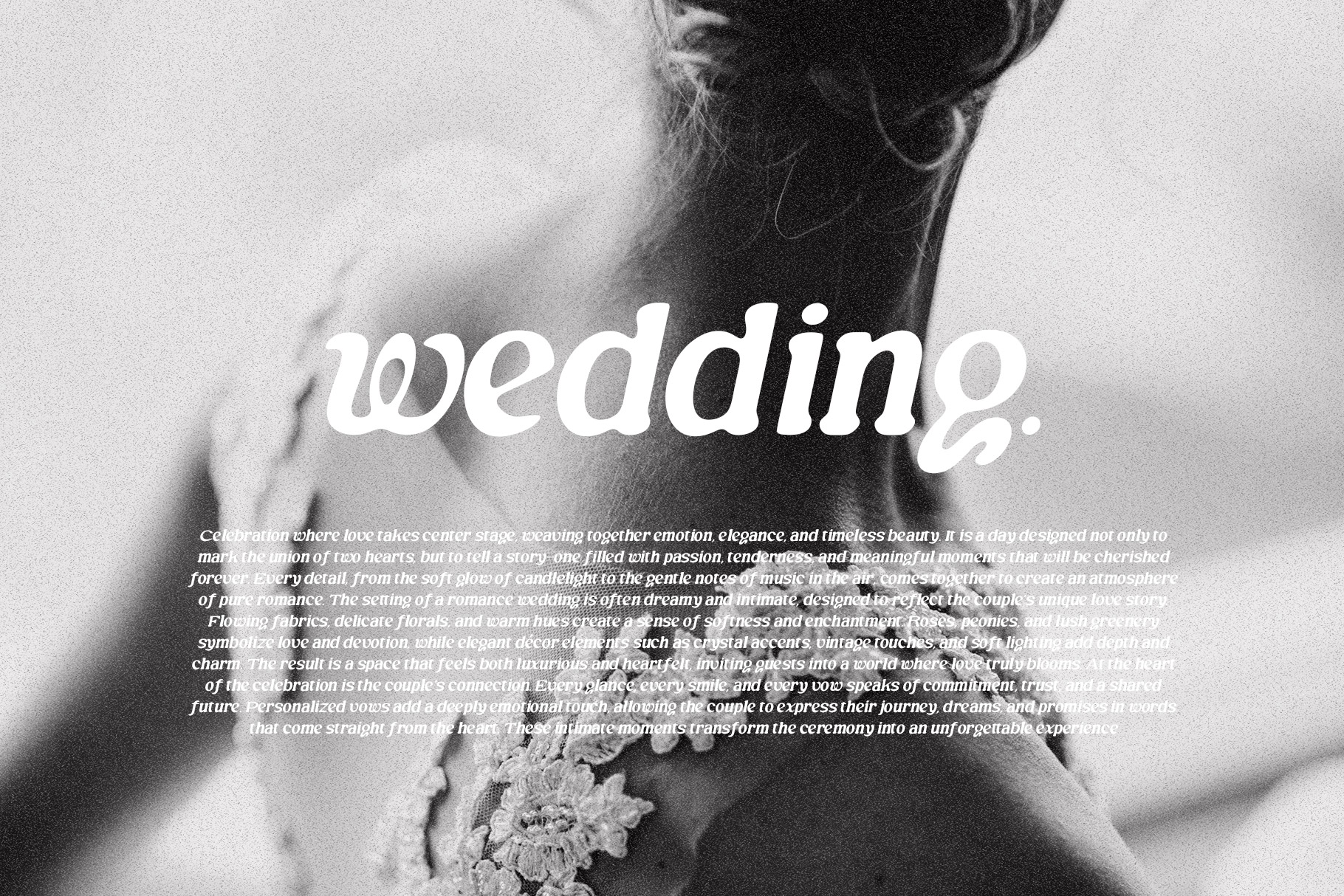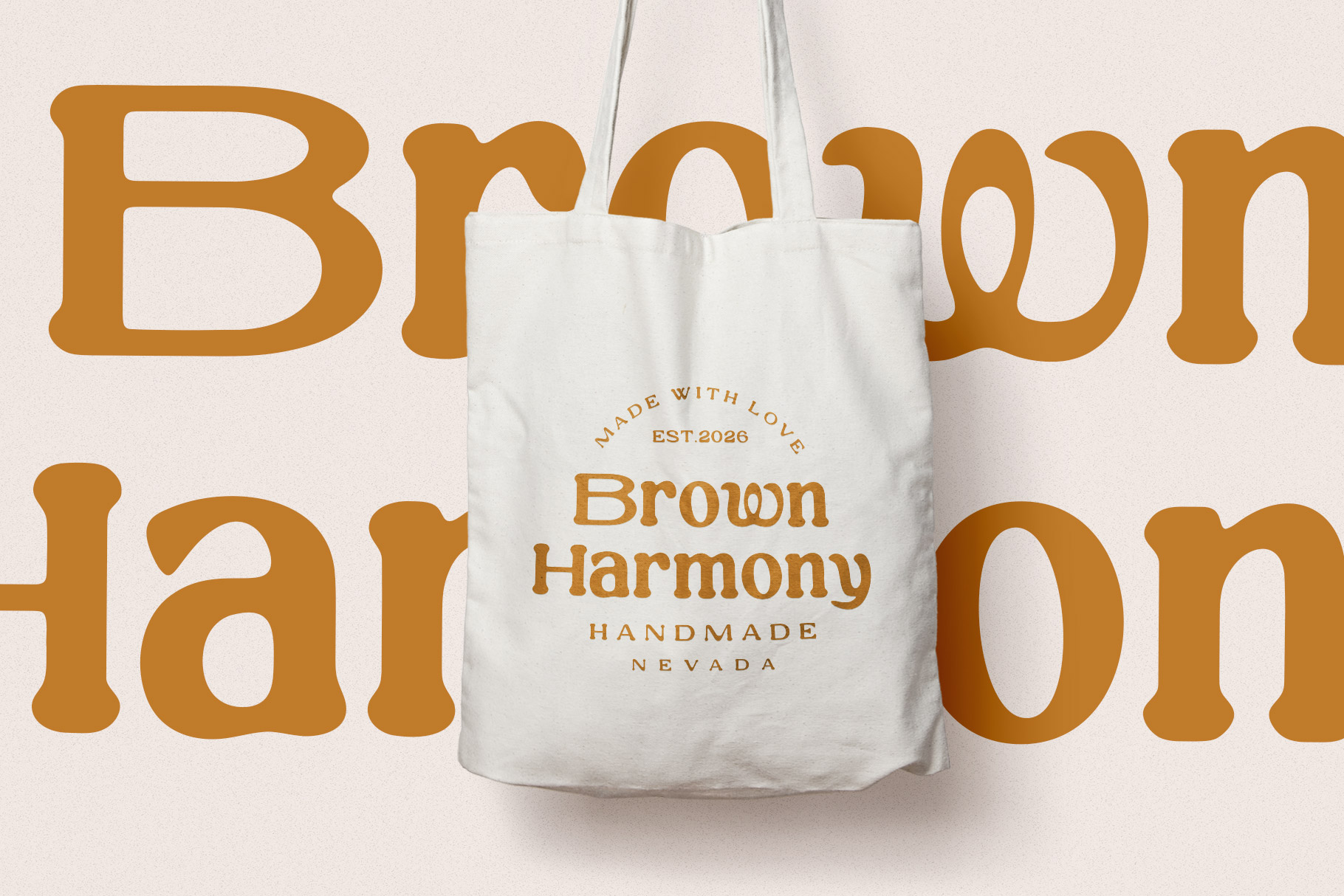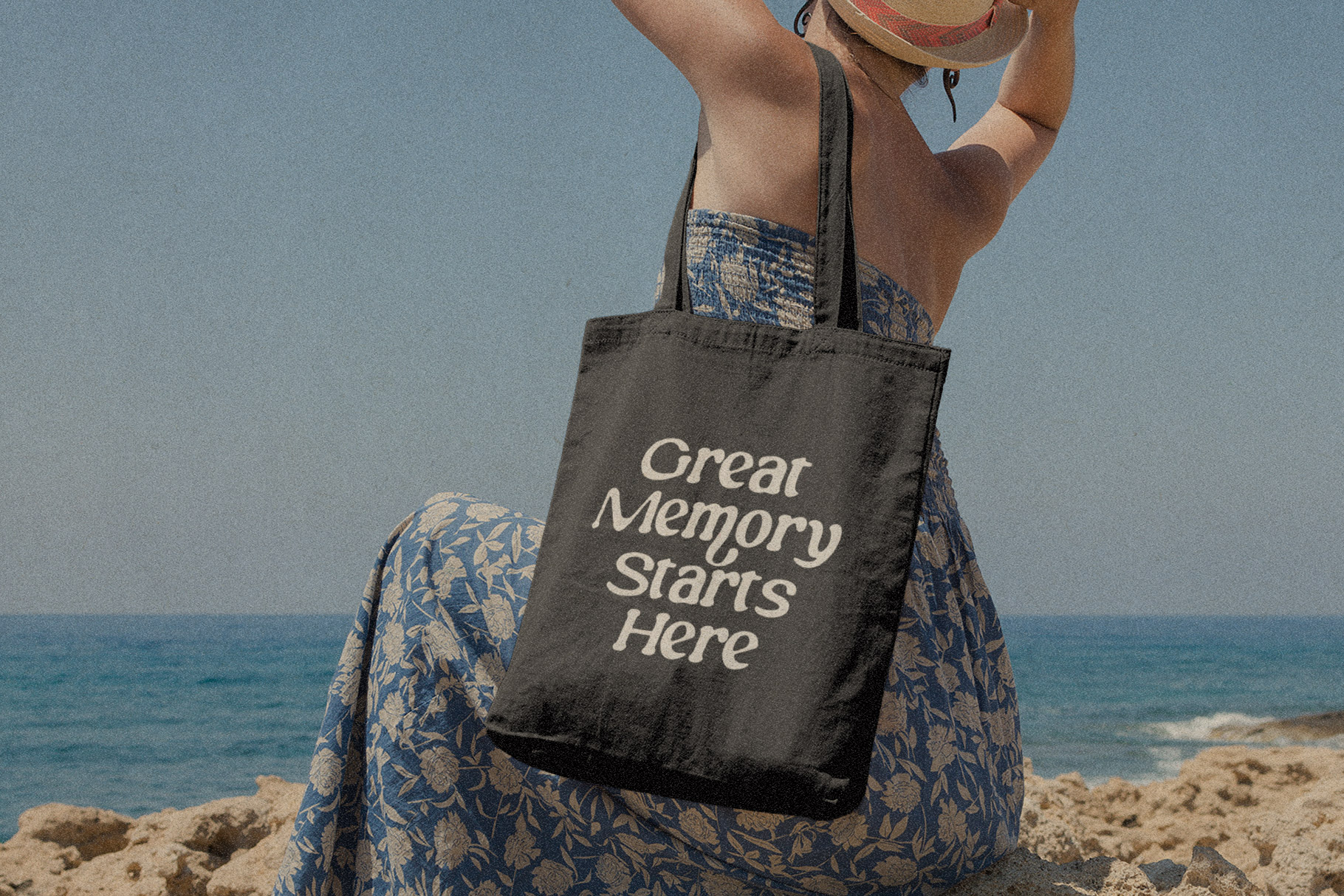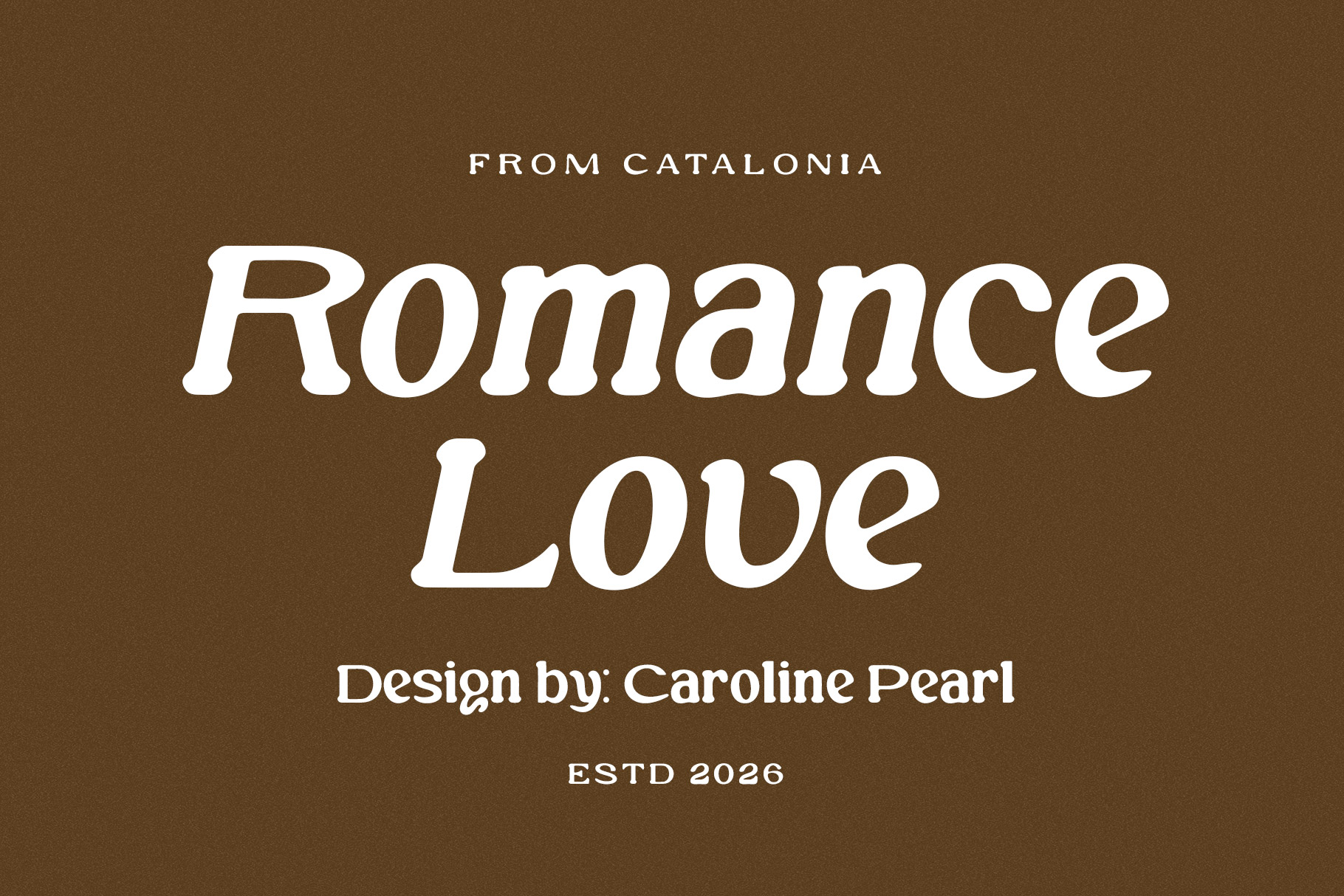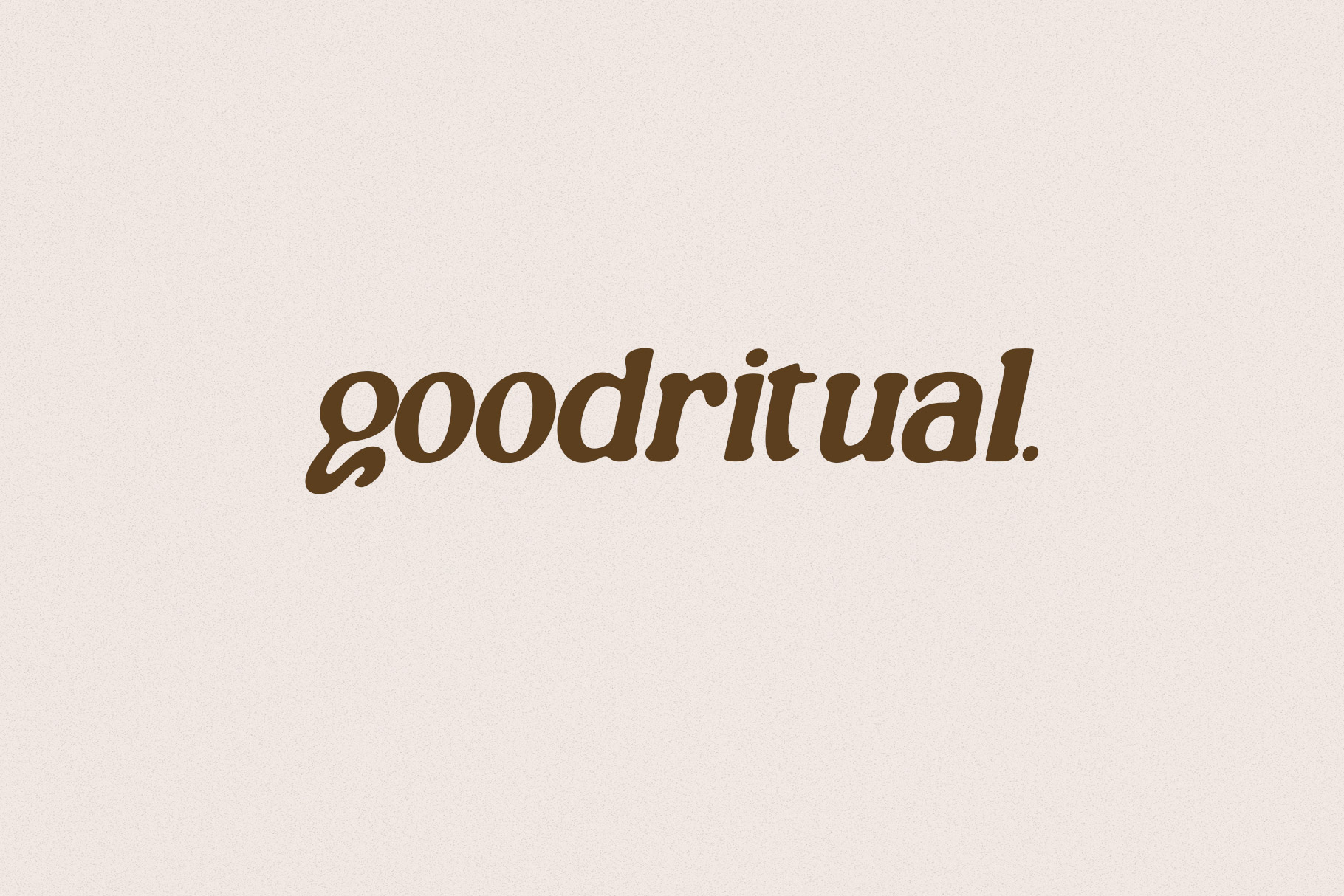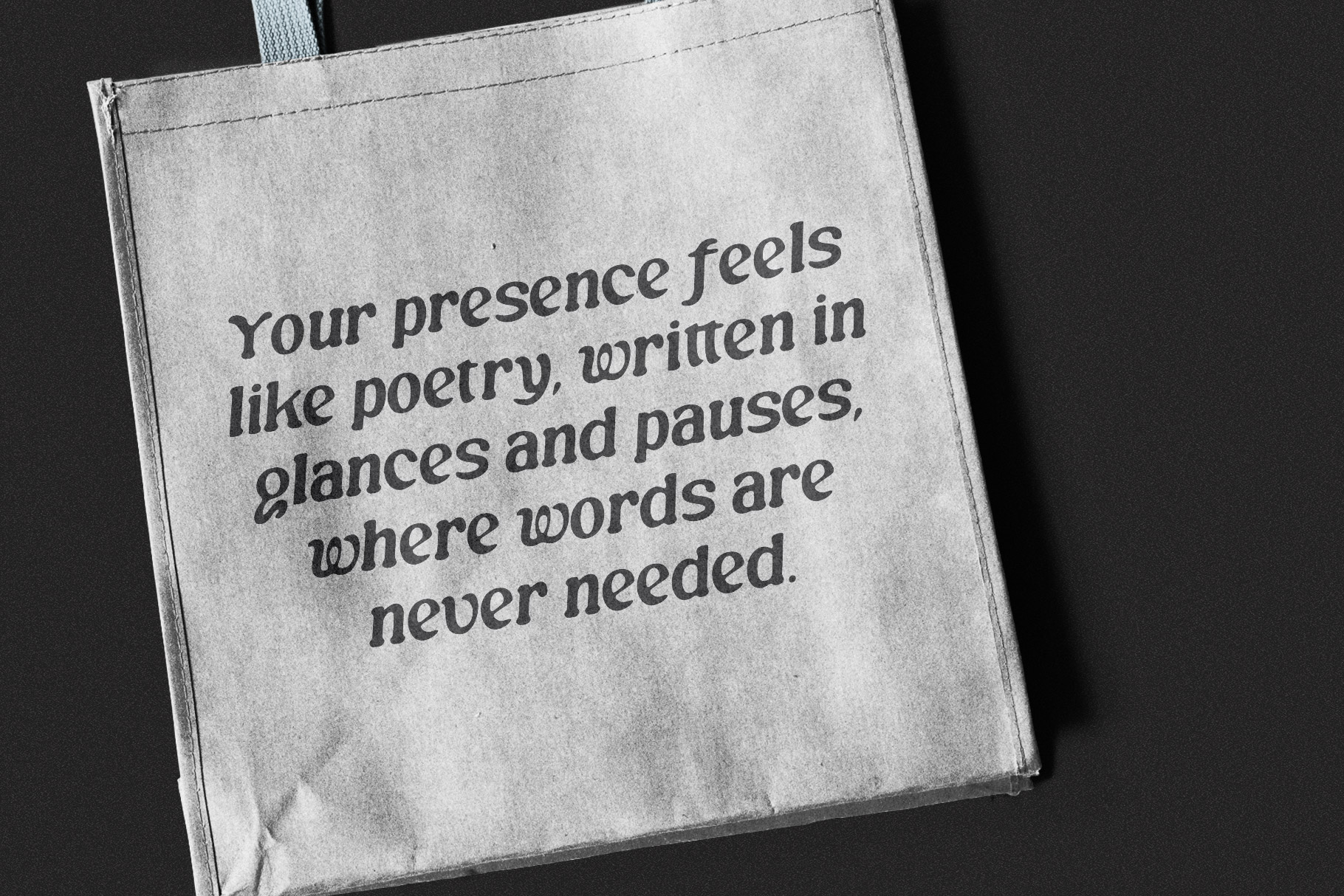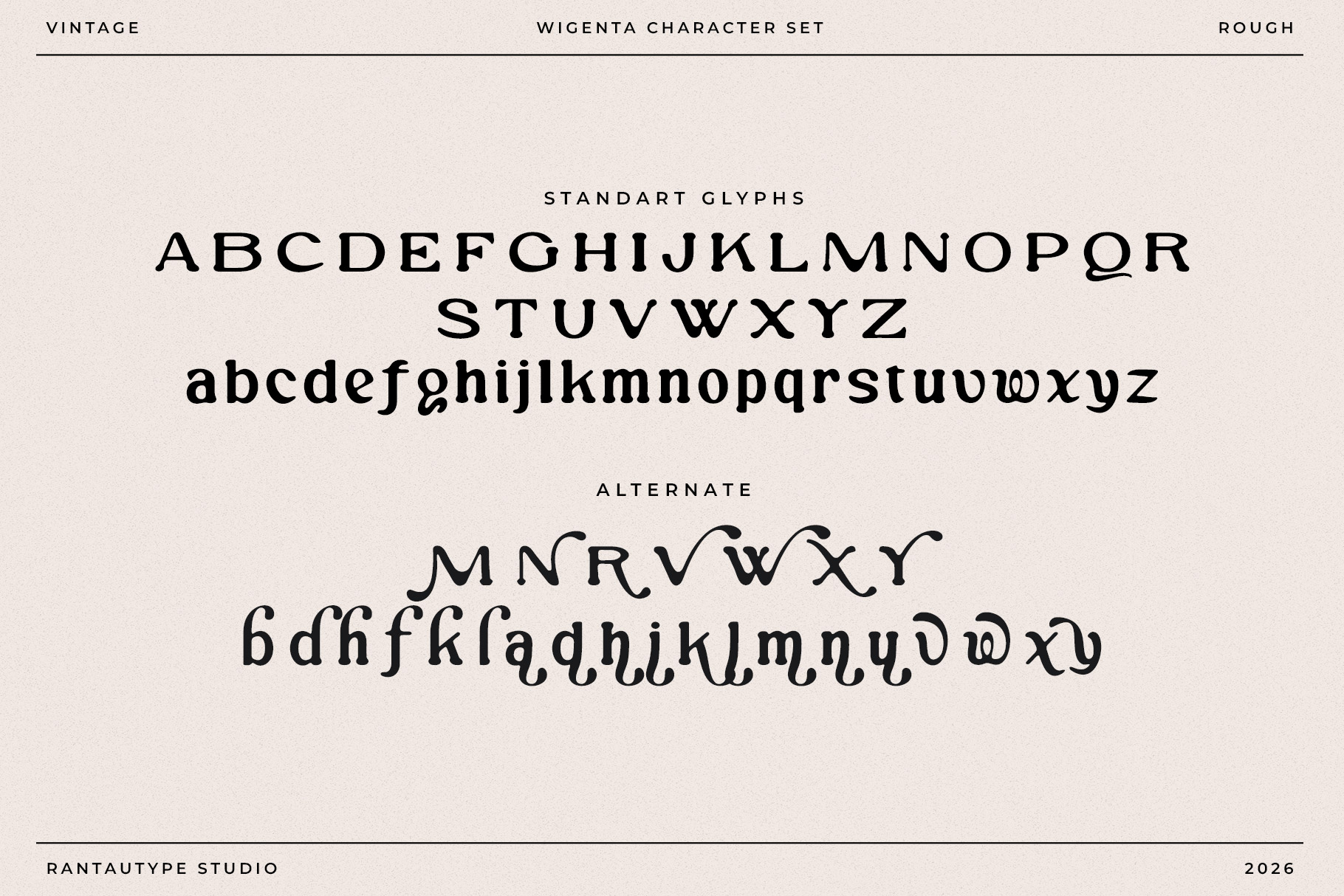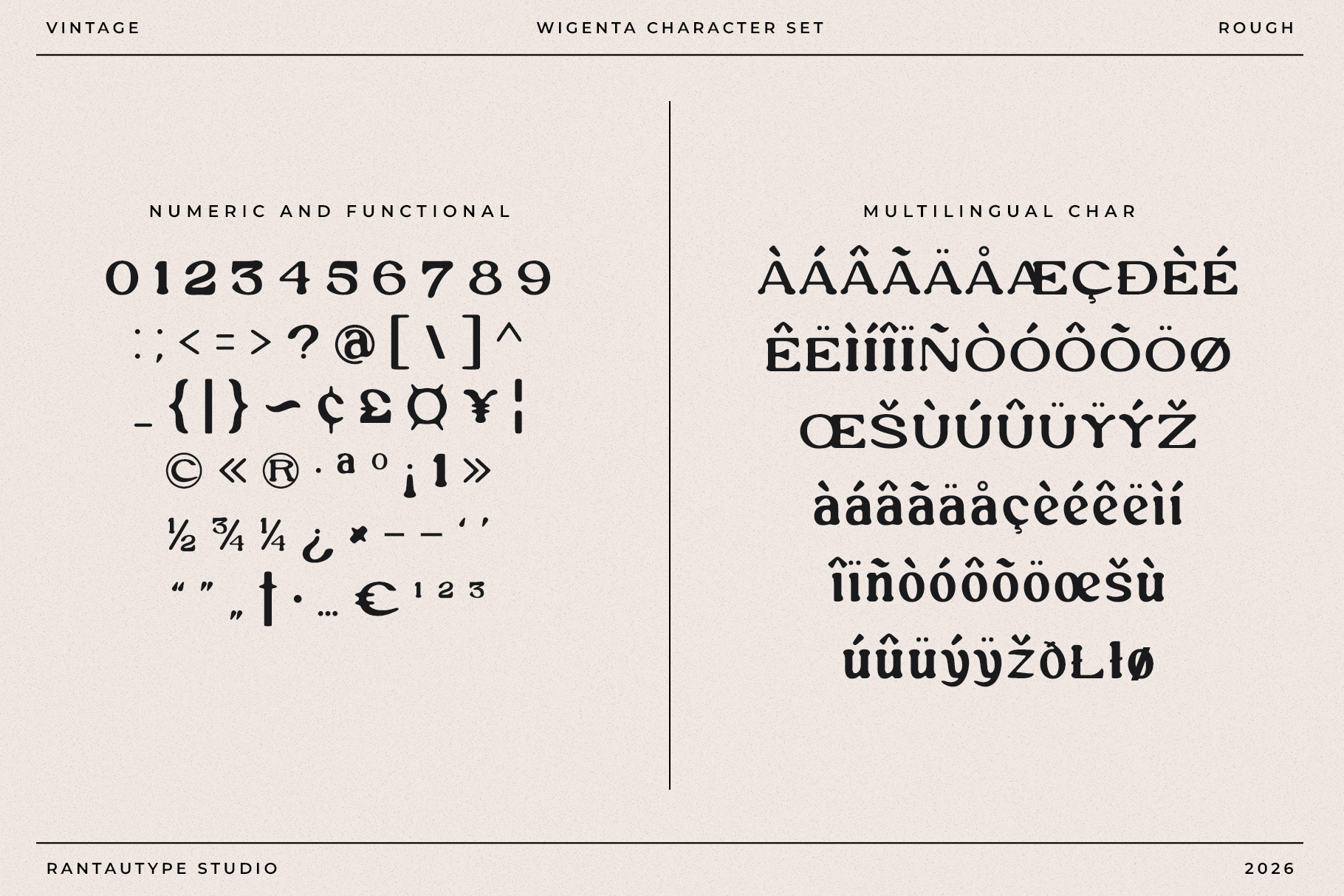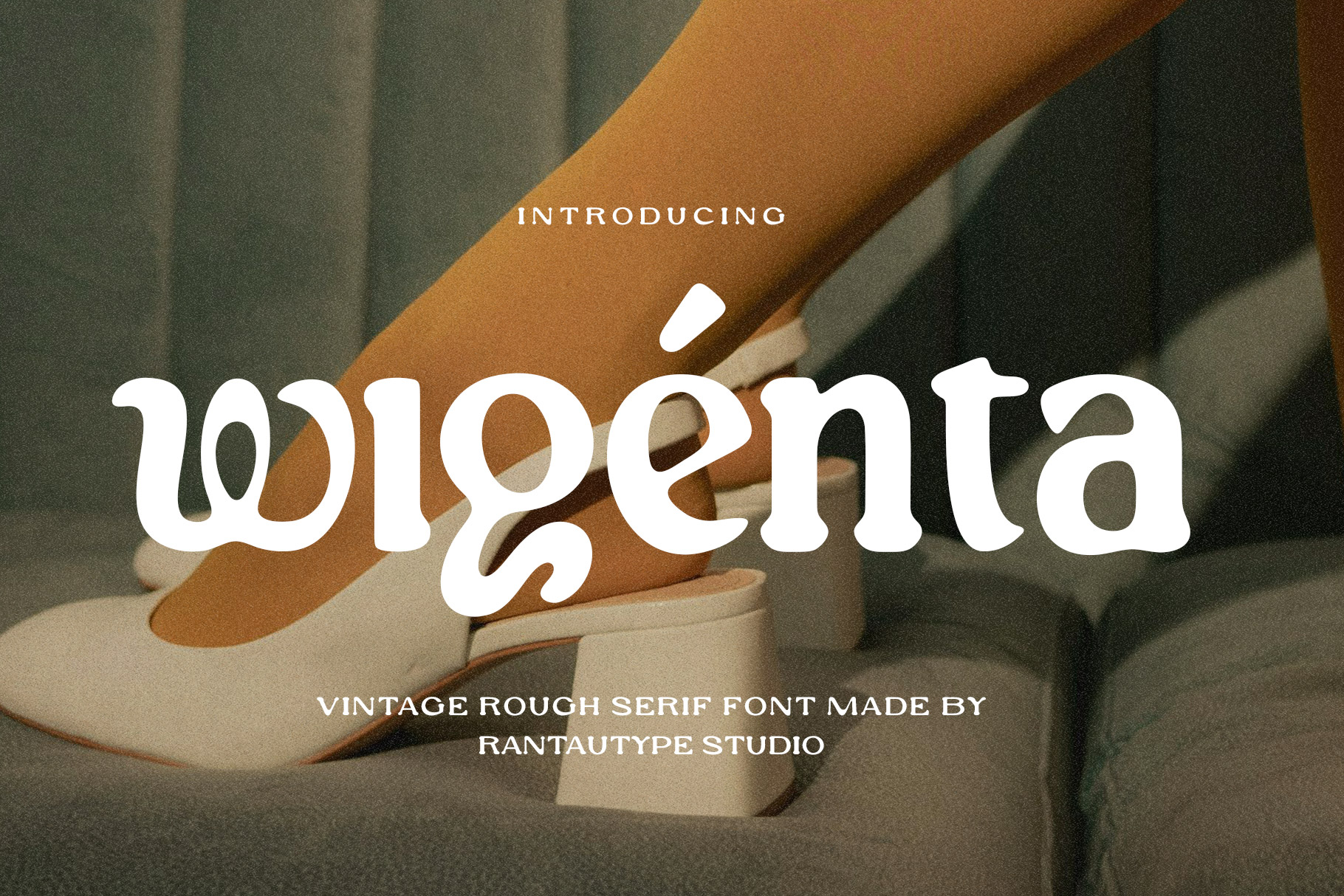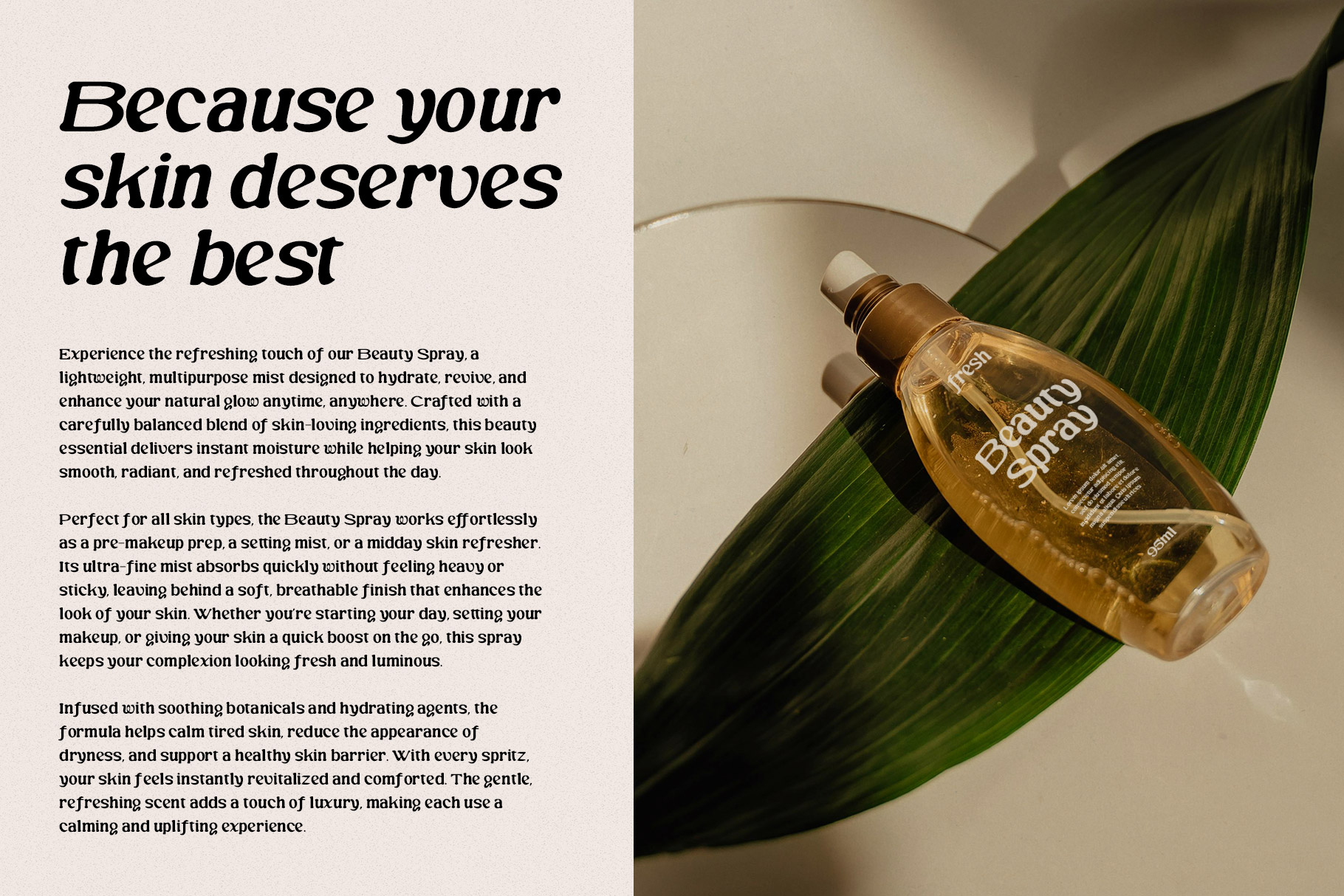
Wigenta Vintage Rough Font
Wigenta is vintage rough font made by rantautype studio. Wigenta captures the raw charm and timeless character of classic typography, bringing a sense of history and authenticity to modern designs. Inspired by old signage, hand-printed posters, and weathered print materials, this style of font carries visible texture, uneven edges, and distressed details that tell a story of age and craftsmanship.